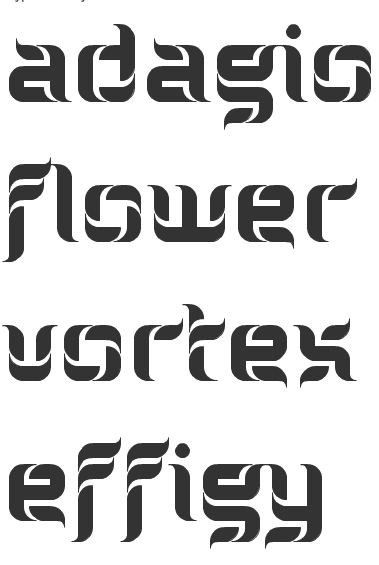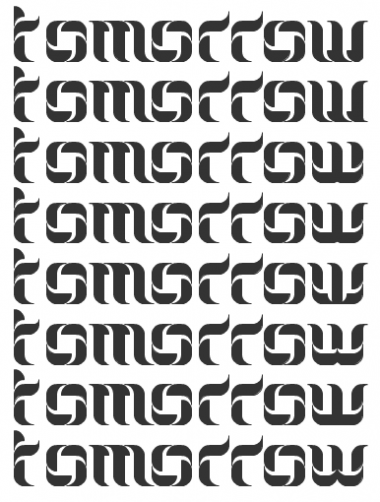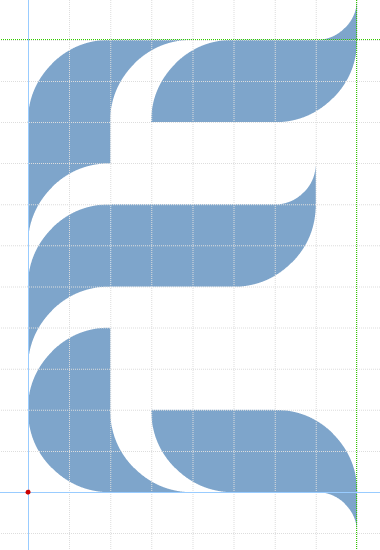
• Yesterday afternoon I was sipping Coke on a sunny terrace and thinking about life, and the universe, when an idea came out of the blue about a new stencil font. The idea was so simple, I almost felt ashamed not having it much earlier. Back home I started to work on it, and created the first set of letters. It's a work in progress, fraught with imperfections, including the usual spacing-kerning problems. Remolino is a Spanish word for vortex.
I'm jealous. It's got wonderful energy.
love the sample. it really shows your work to great advantage. again, wonderful movement within the glyphs. and the shapes are elegant as well. it is amazing how fonts come to us. much like a songwriter who hears a melody before anyone else, we must also 'hear' our fonts before others do. nice job.
Wonderful - it looks as though you have run your fingers through it to produce these sinuous shapes.
Looks great, for some reason it reminds me of the stylised version of the British Flag. I think because each character can be split into 3 or 4 different colours. My only crit would be 'w'. Is there anyway you can can have it curling up in the middle, rather than perfectly flat, also have you though of making a shorter 'r' a bit like the 't'?
Great direction. There's some twisting three-dimensionality at certain sizes. I want to clone it. I like the story of inspiration too. Although the "Coke" seems out of place. Maybe it doesn't have the poetry of say, an espresso or a cigarette or a tumbler of Whiskey. But hey, if it led to the production of this FontStruction, then stay the course.
It reminds me of a windmill toy! :-)
Cool, sophisticated, masterful. Win.
I love it...great job.
@intaglio: Believe it or not, you were on my mind when I was working on some particular letters. I thought, you would shape it just the way I did (e.g. those little spikes at the end of the strokes, they were added later).
@funk_king: You've said it beautifully: the "fonts come to us". I was looking for this font for months, carrying around some sketches and samples with me all the time. They all suffered from being too complicated and polygonal. You are right about the songwriter and the melody. One could not put it more clearly.
@p2pnut: How interesting these shapes draw different pictures, metaphors in peoples minds. I thought at some point it looked like toothpaste squeezed out in three colours.
@djnippa: The Union Jack, interesting. I just wrote about the toothpaste tricolor. I might do some demo pic in red, blue and white. Special thanks for the critique. This is the sort of feedback, practical info I was looking for when I decided to publish this work half finished. I've modified the "r" accordingly, and it looks a lot better. The flat bottom "w": well, I've made a new version, but it looks inconsistent with the rest of the set. I'm not sure whether it was really what you suggested.
I'm agree, the basic shapes have an "intaglioish" flavour, but the treatment is 100% Frodo7, a new genetically mutated fontstructor is born !
More seriously, the illusionary 3d effect reminds me some of your past scientifically crafted optical fonts. It seems that now you have the maturity not only to study and adapt to Fontstruct existing illusionary patterns, but to work on more personal designs integrating unconsciously, "naturally" in a much more subtle way effects derivated from your past studies. Great improvement in your own path.
Also, I find your aternate v absolutely cute and delicious.
@afrojet: Thank you for the special mention. The font is only half done. I hope it won't disappoint you when completed. You are right about the 3D, and this is where it gets very exciting. I plan to make a set of small caps, and a version of lighter weight.
You can clone it. It's a great honor to me that a pro designer sees potential in my work. I've changed the license, it remains open for cloning for a day. Other honest members are also welcome, if they're interested. I'm thrilled to see some new version(s) I would never imagined. And I can imagine a lot of things. I'm also aware of my own limits, and the huge potential of cross-pollination of ideas. I keep my works locked only to prevent copying and potential abuse by third parties. Sales for profit at some time in the future is not completely out of the picture.